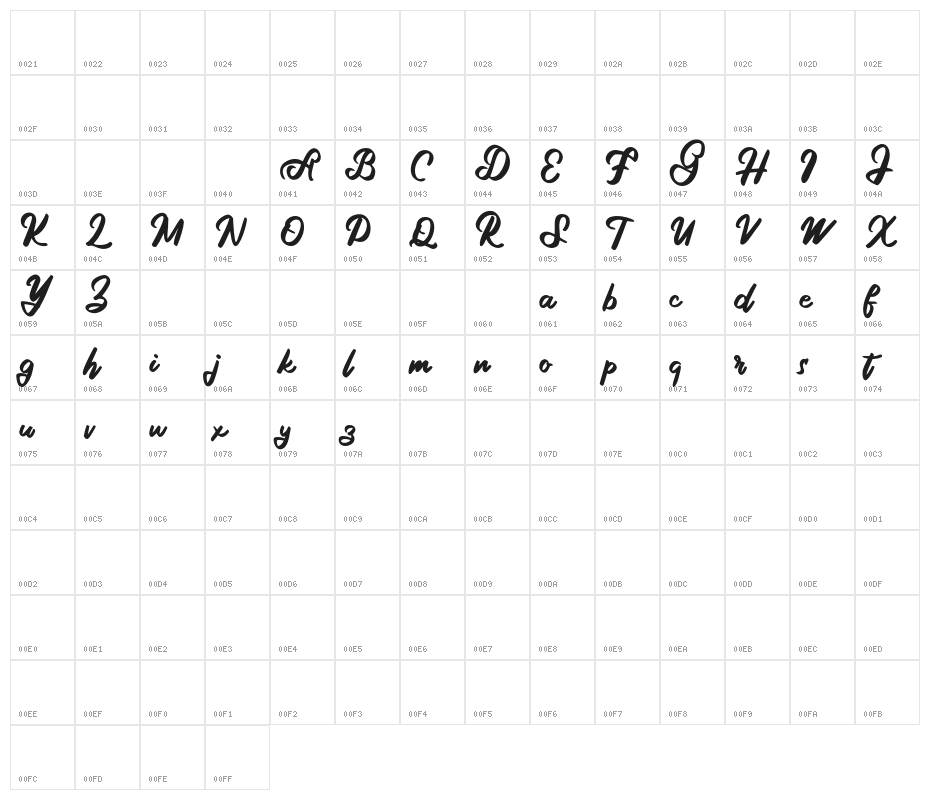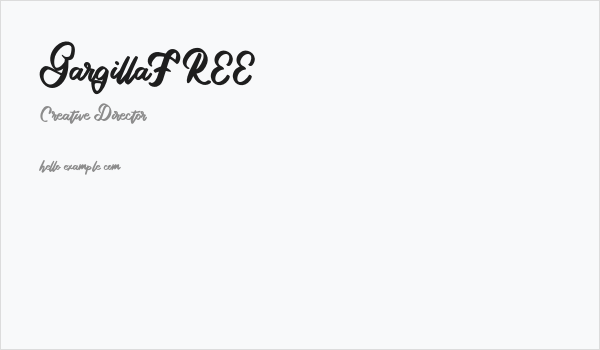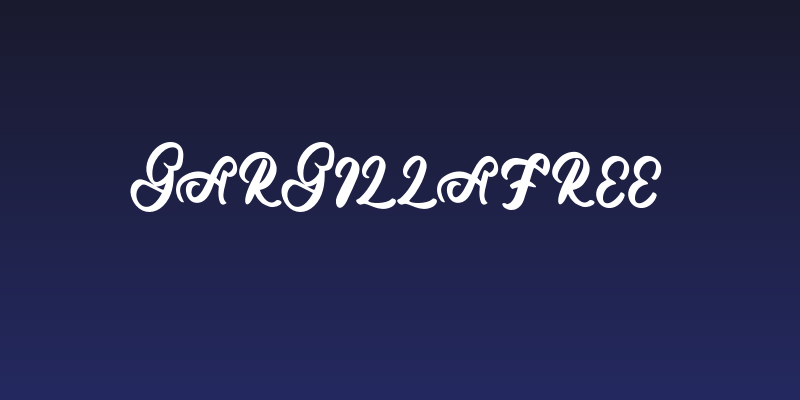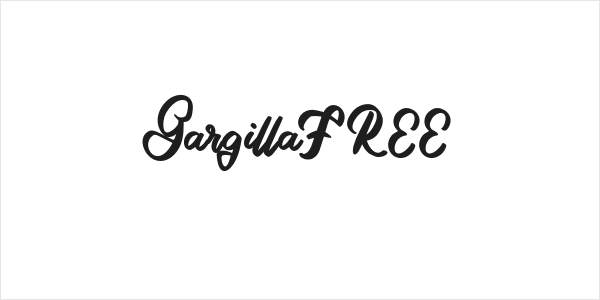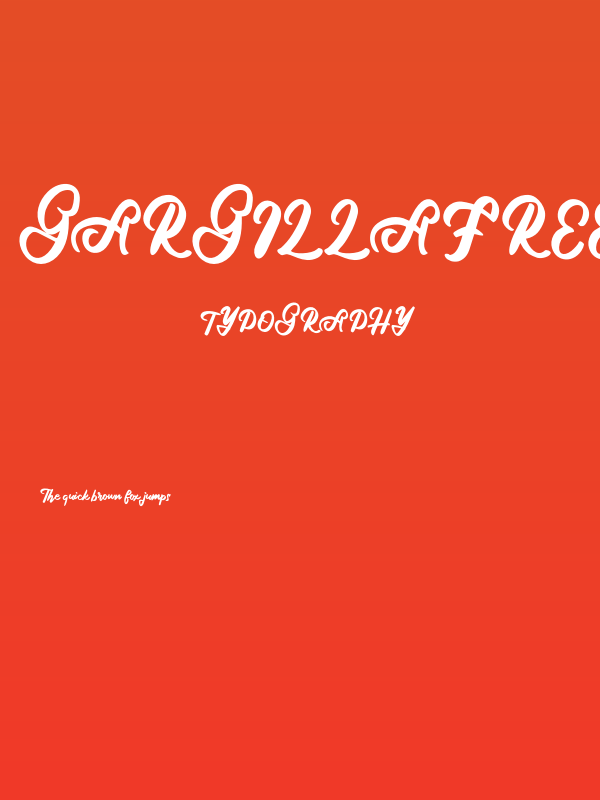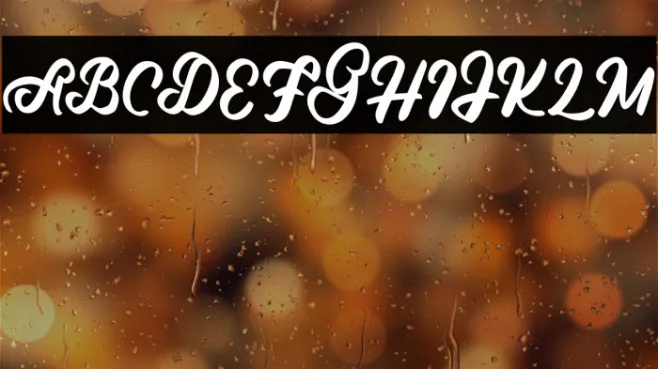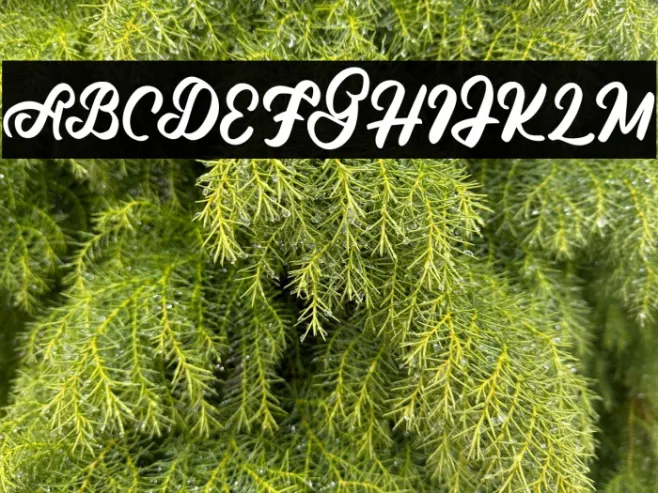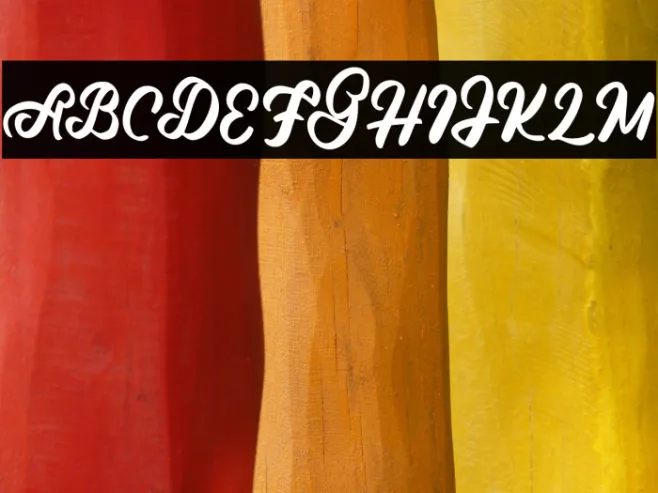
GargillaFREE Font
GargillaFREE Description
This font features a bold and expressive script style with a flowing, cursive design. The characters are interconnected, creating a sense of movement and fluidity. The uppercase letters are elegantly curved, while the lowercase letters maintain a consistent rhythm and balance. The strokes are thick, contributing to a strong visual impact, and the overall appearance is both playful and sophisticated. This font is ideal for projects that require a personal touch, such as invitations, branding, or creative headlines. The special characters are seamlessly integrated, maintaining the font's cohesive style.
| Proposed Projects | Ideal for invitations, branding, creative headlines, and personal projects. |